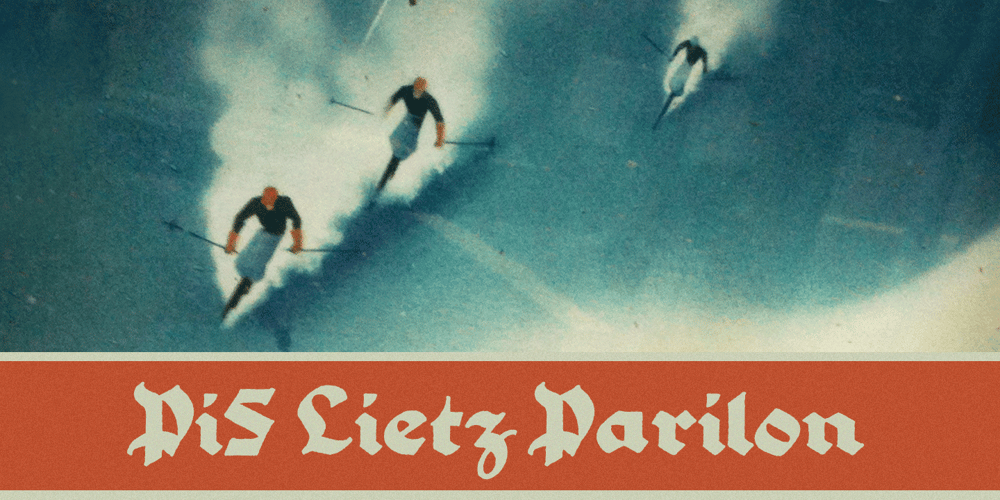
PiS LIETZ Parilon Font Family was designed by Hannes Siengalewicz and published by PiS. PiS LIETZ Parilon contains 1 styles and family package options. PiS Lietz Parilon invites you to the austrian countryside for an amazing ski-tour on snowy mountains back then when skilifts were sparse and mustaches were far from ironic. Use this heavy fraktur for retro tourism posters, your classic beer or schnaps brand or anything that needs a good swig of tradition! Heat up the Jagatee and enjoy the earthy taste of PiS Lietz Parilon, it will warm your heart!